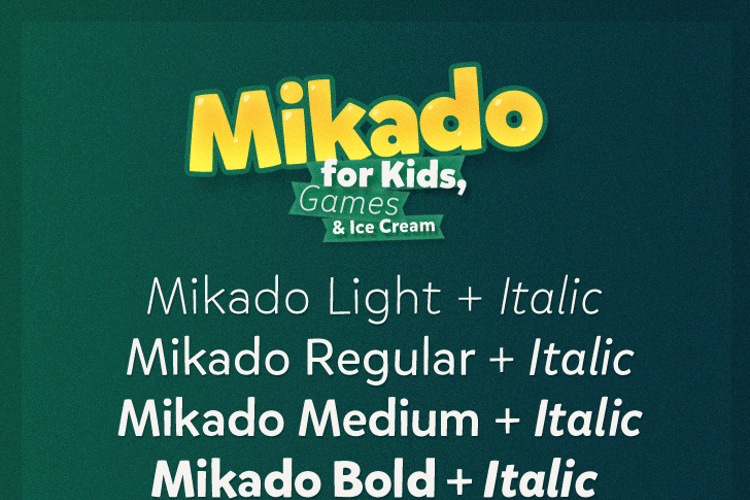
Mikado Bold Font
Mikado has a positive, kind of “out-of-the-box-appearance” in big sizes, but because of its straight architecture the fonts are also very legible in smaller sizes and longer texts - in print or on screen.